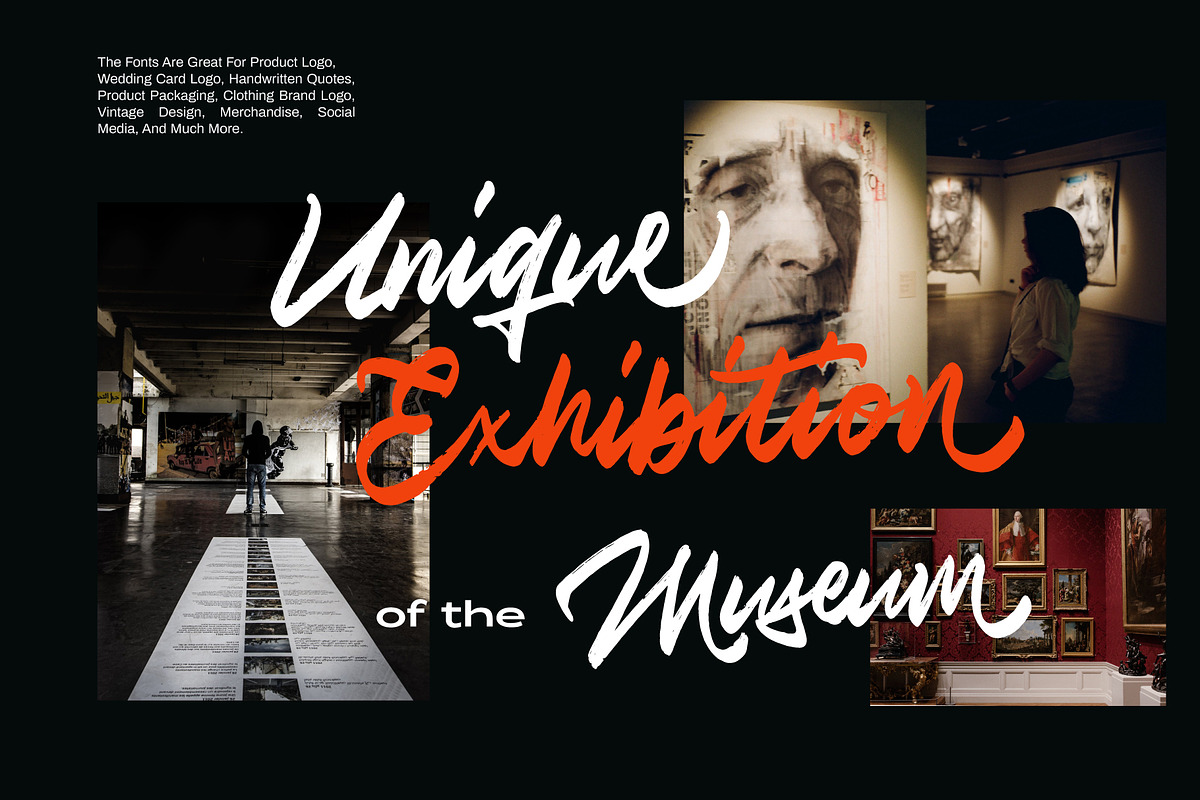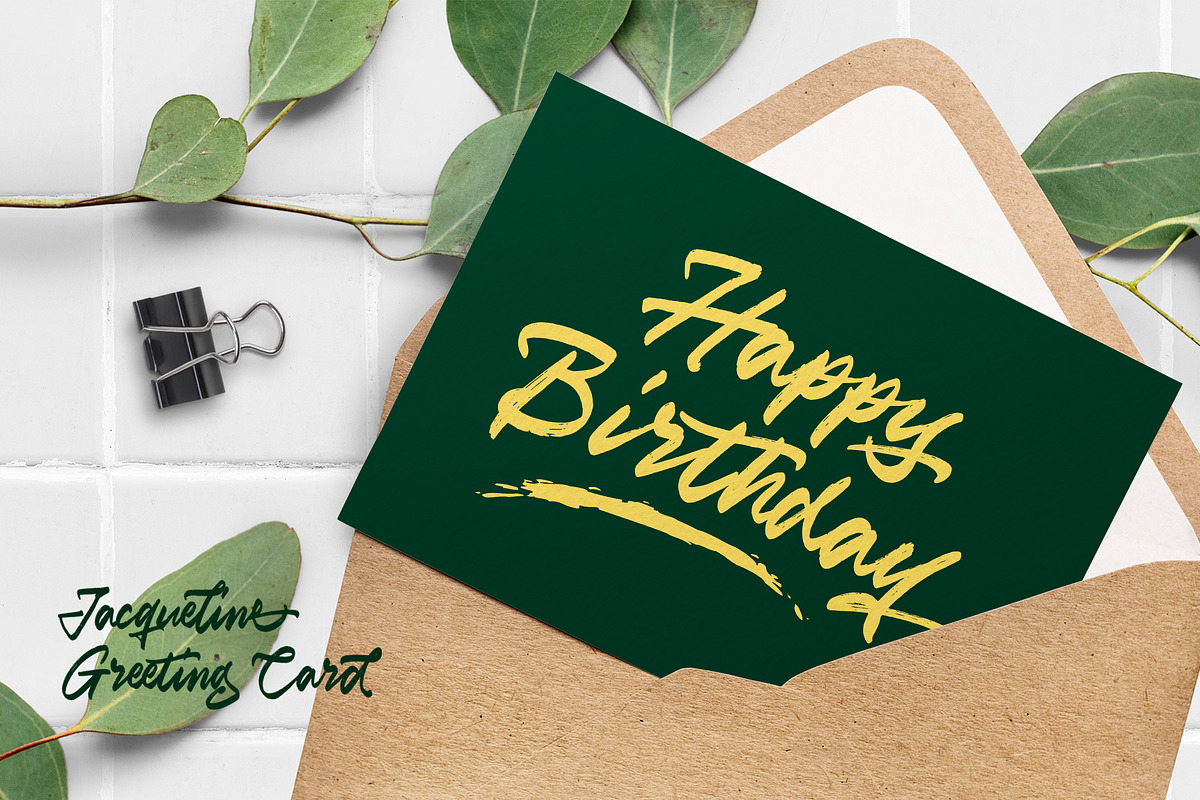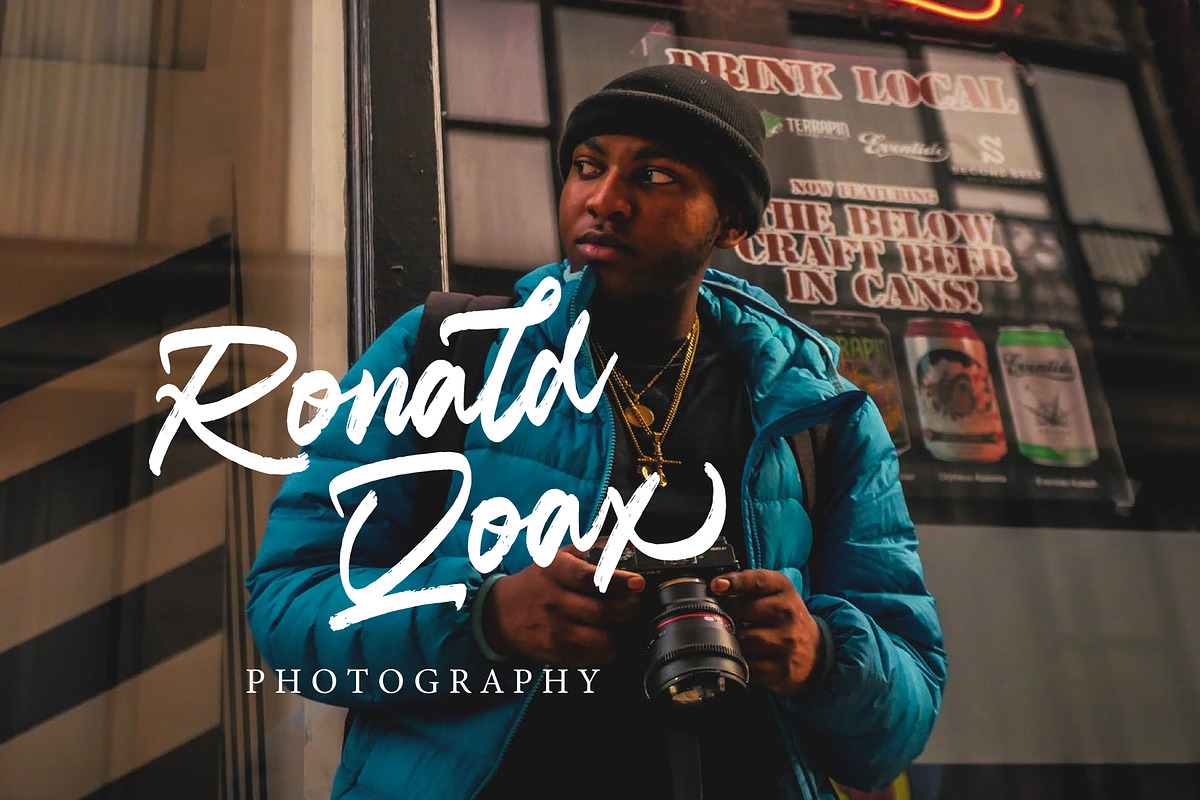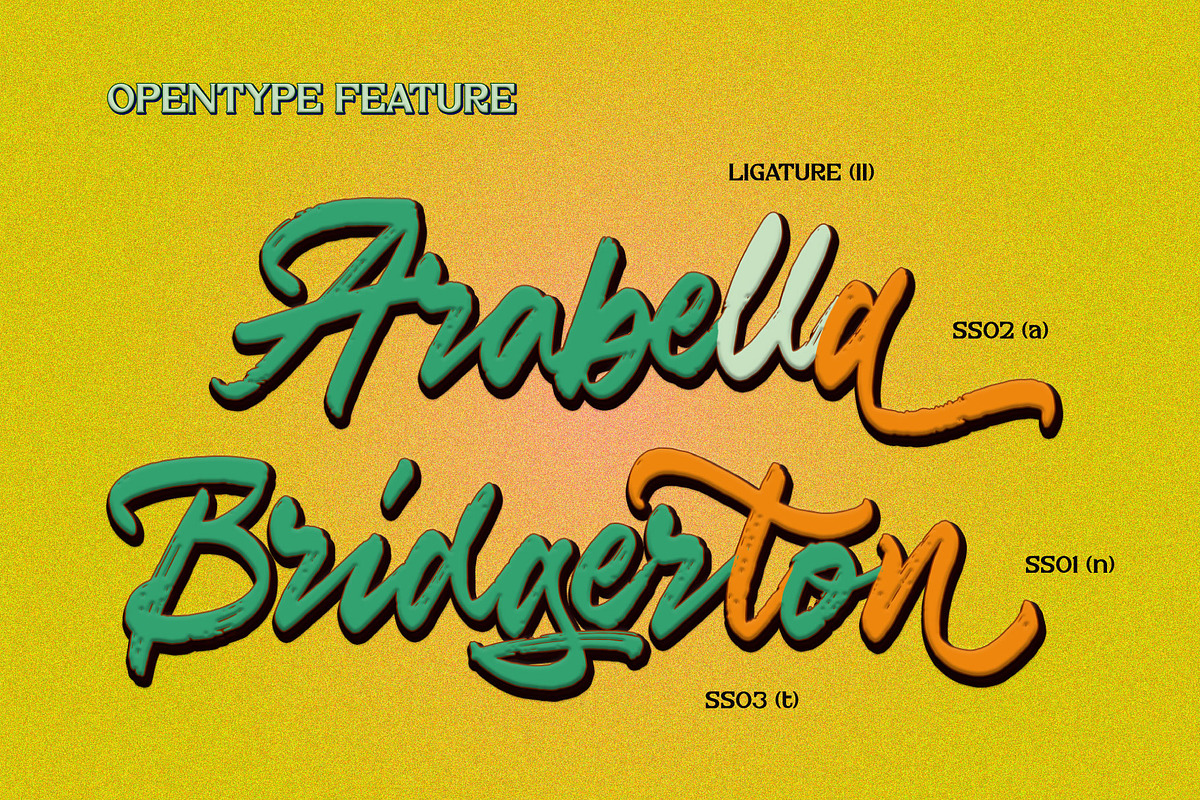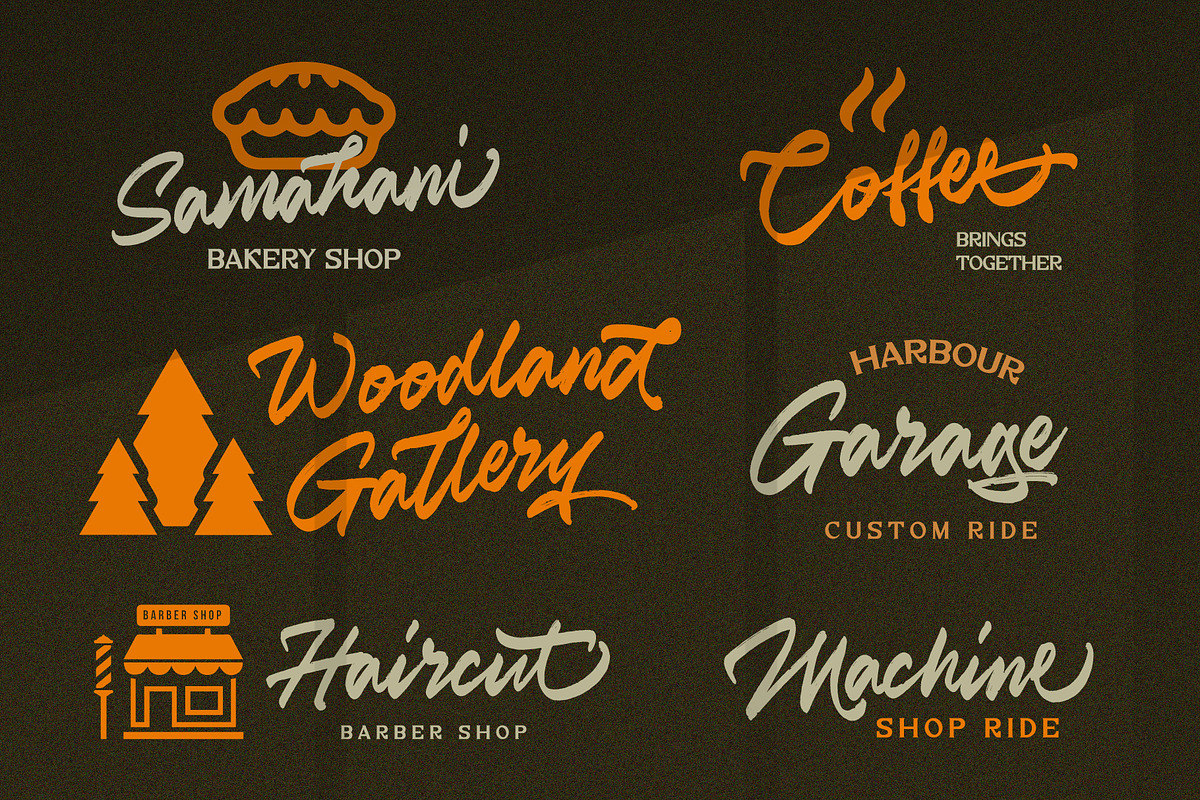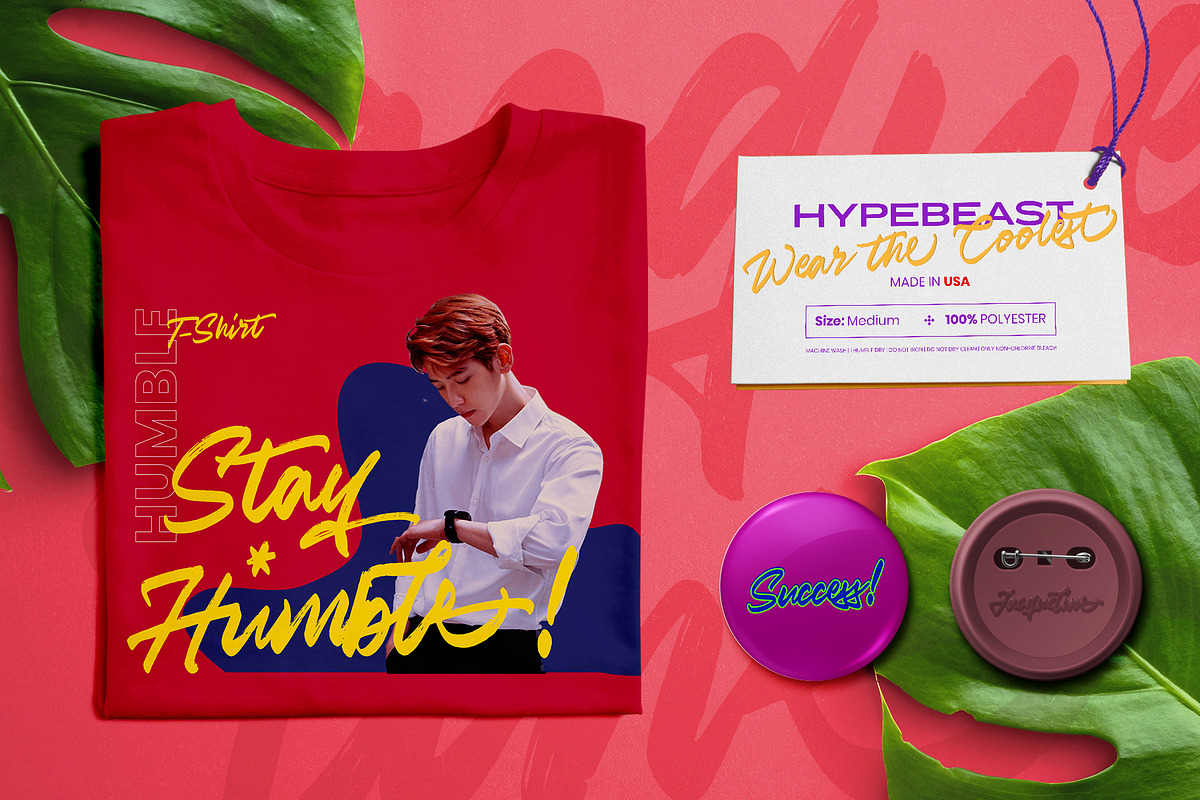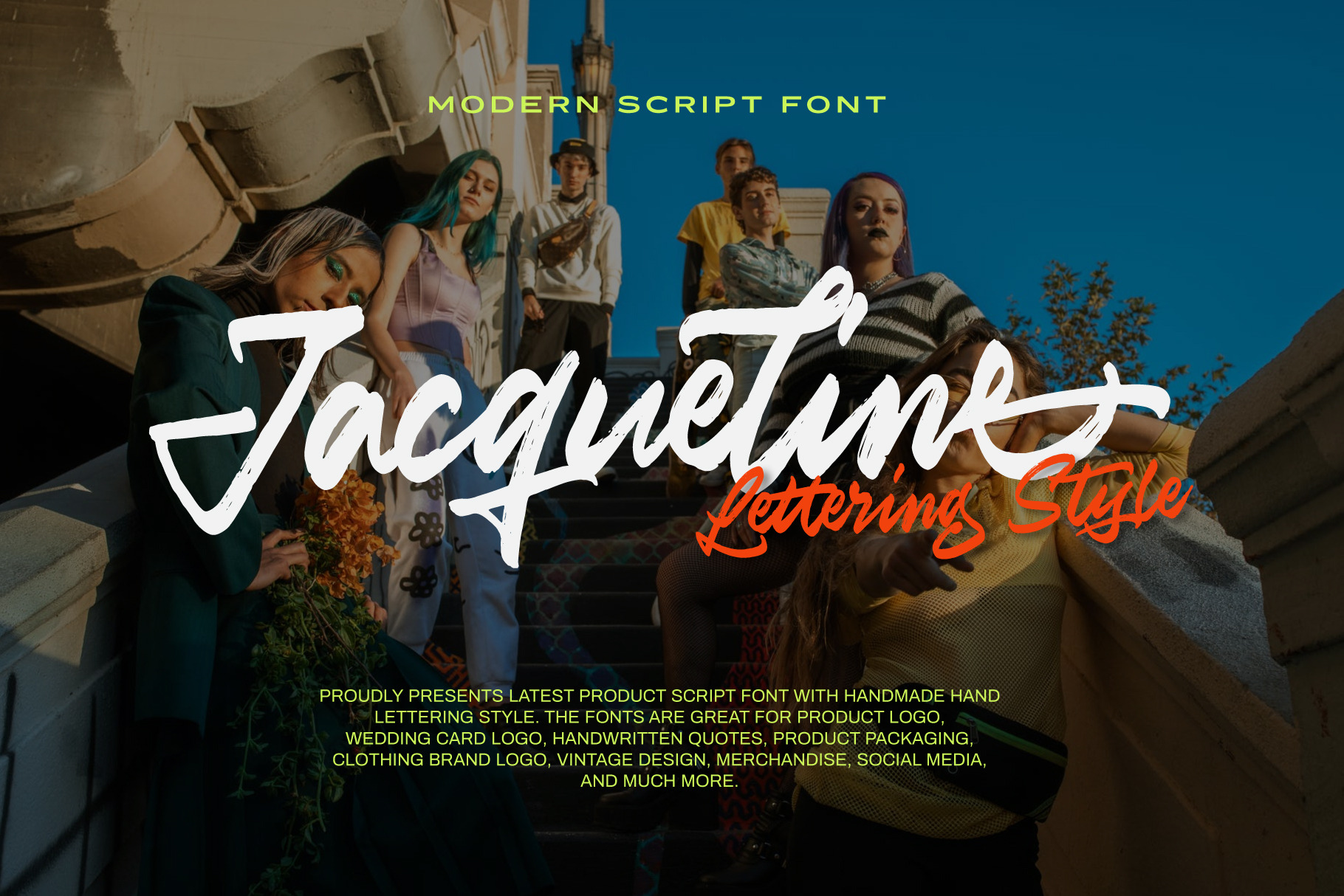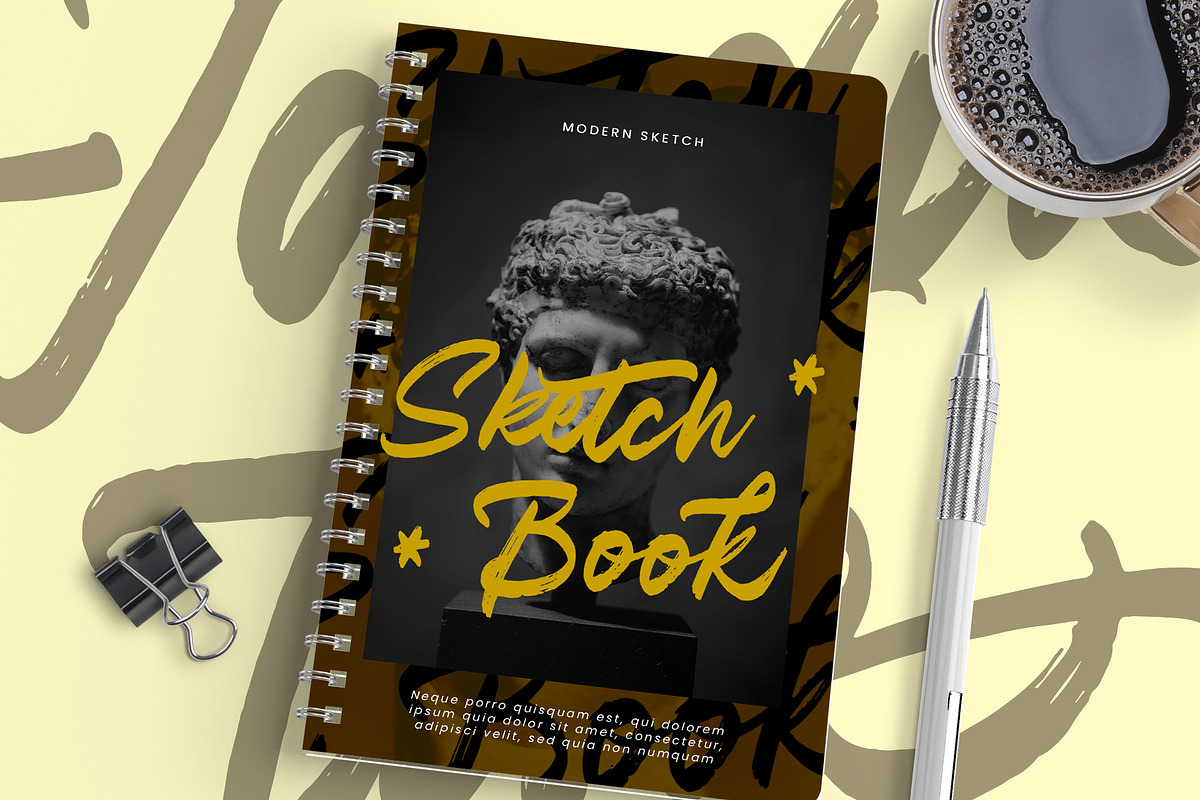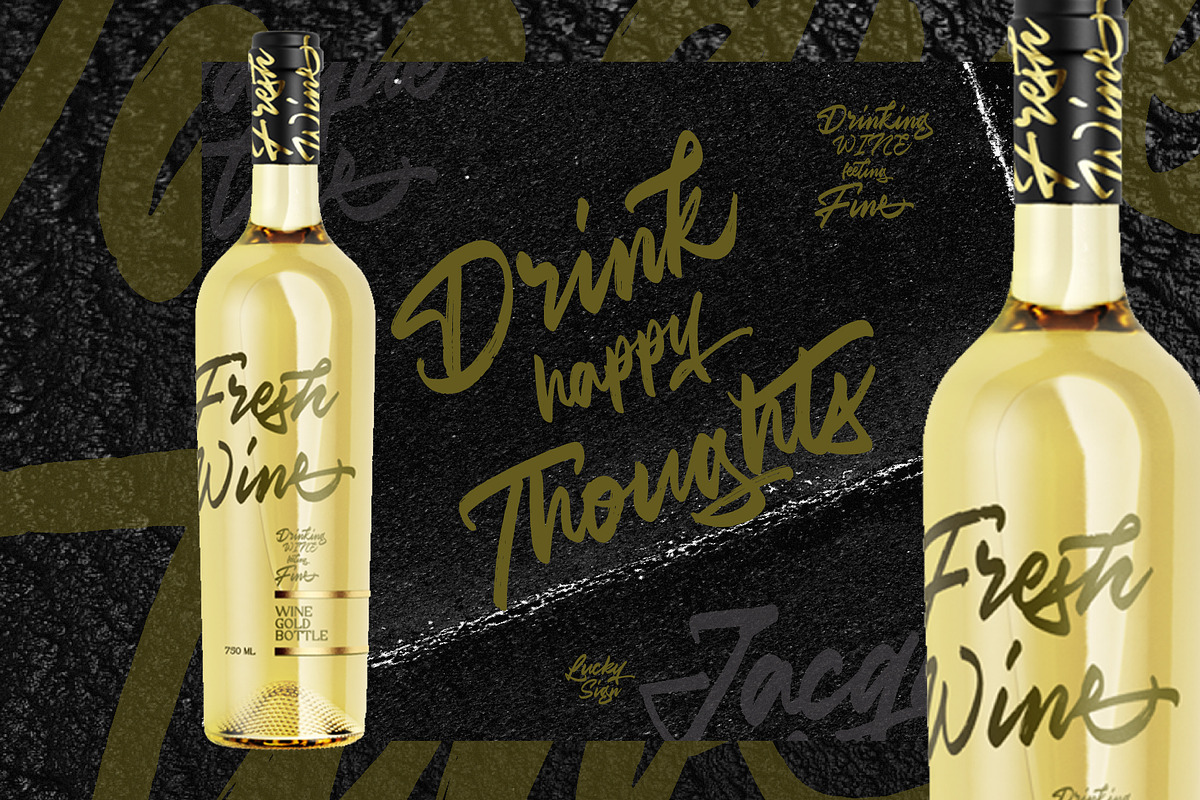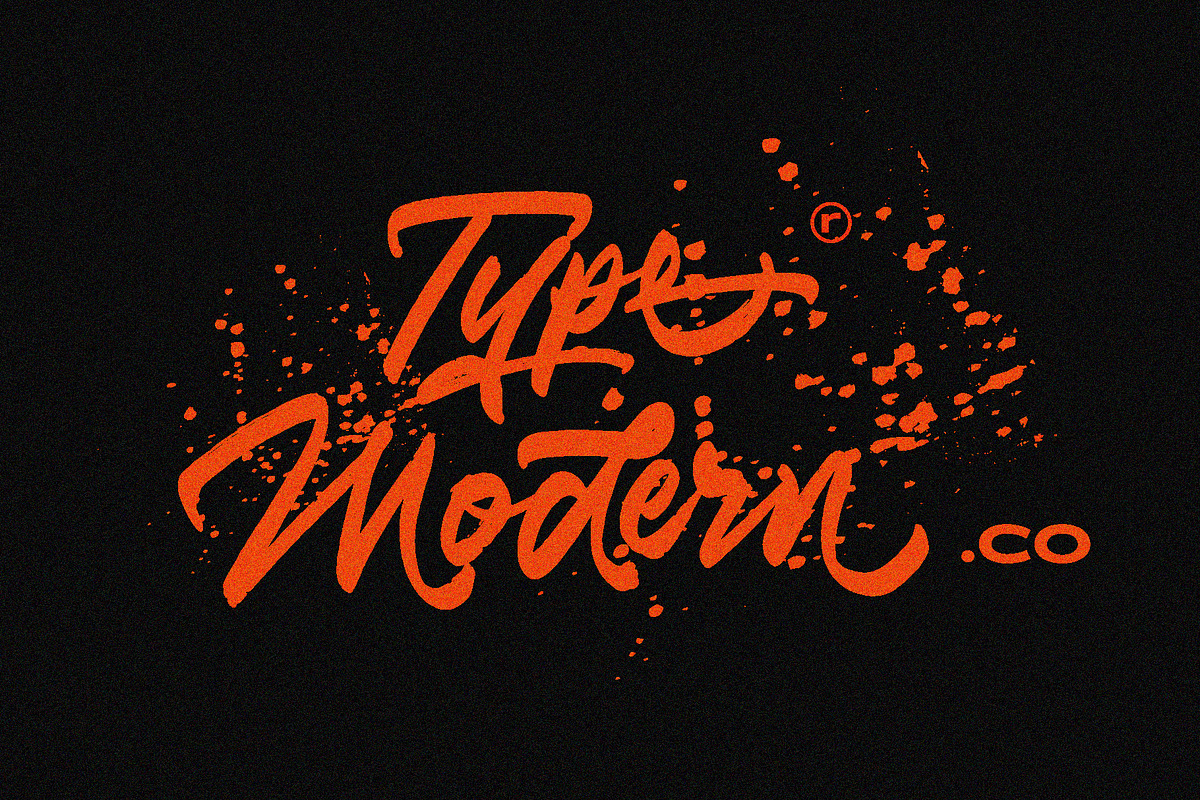
Jacqueline Brush Urban Font
Jacqueline Brush Urban Font is a modern Brush Script font that feels beautiful classy, elegant, and modern. It is perfectly suited for a wide variety of projects, as to signature, stationery, logo, wedding, typography quotes, magazine or book cover, website header, clothing, branding, packaging design and more.
- Stylistic Set
- Multilanguage Support